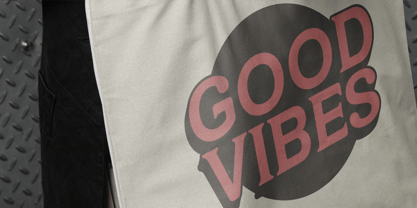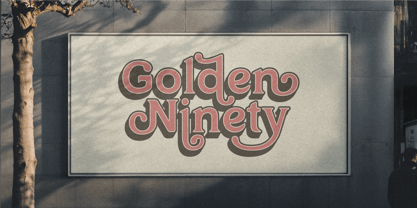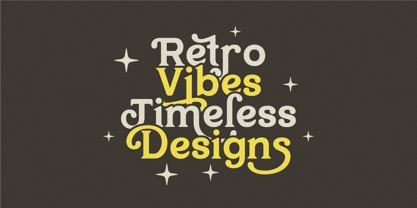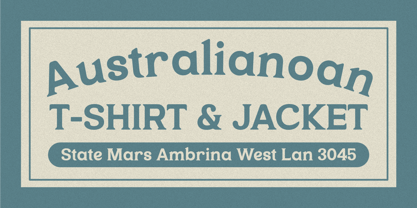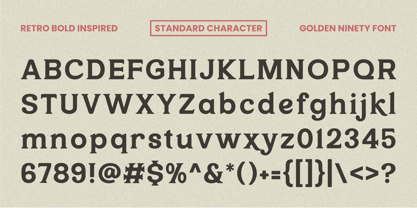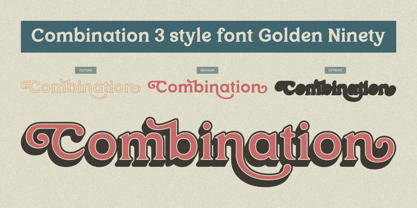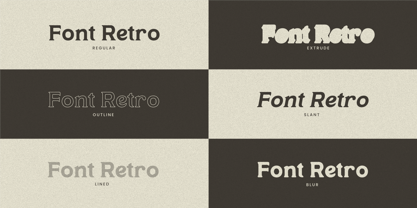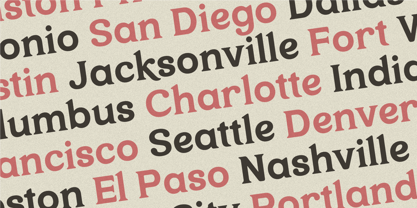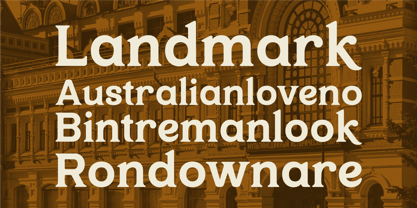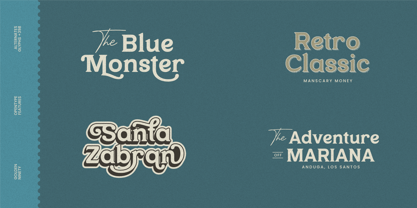
Golden Ninety
by ahweproject
The Golden Ninety Font Family was designed by Dida Ahluddin and published by ahweproject. Golden Ninety contains 5 styles and family package options.
Golden Ninety is a bold and elegant typeface with a vintage flair, showcasing playful curves and artistic details. The design combines retro aesthetics with modern typography, making it versatile for branding, headlines, or creative projects. Each letter in Golden Ninety features dynamic swirls and clean outlines, exuding a sense of sophistication and nostalgia. The font also includes multiple styles such as Regular, Extrude, Outline, Slant, Lined, and Blur, offering flexibility for diverse applications.